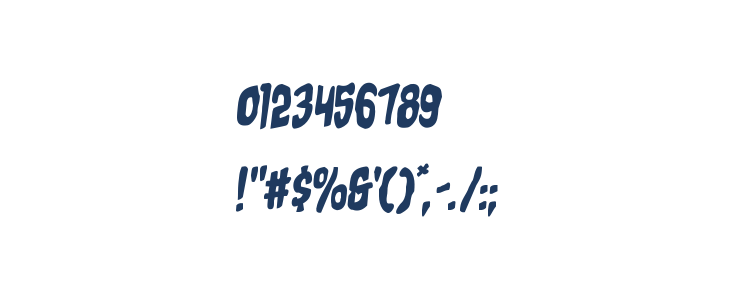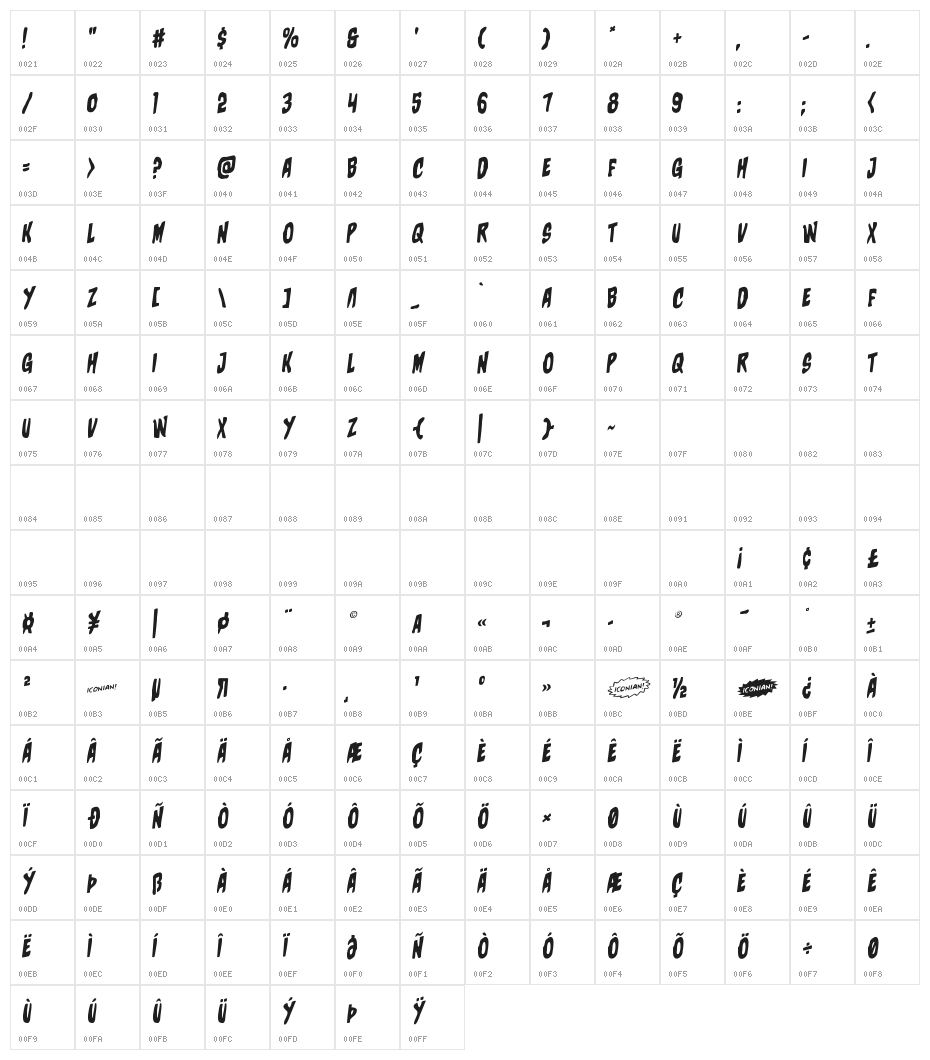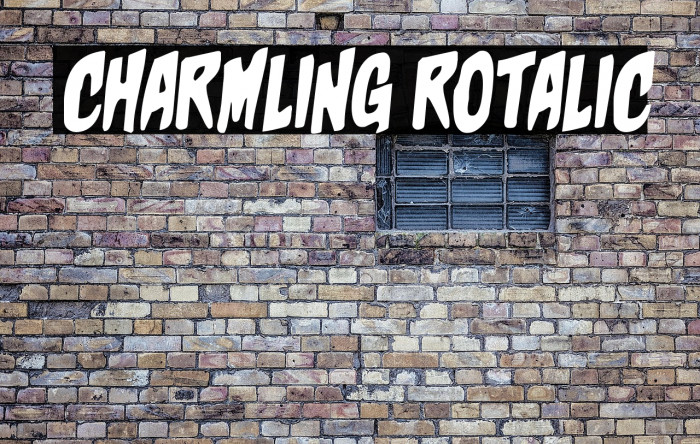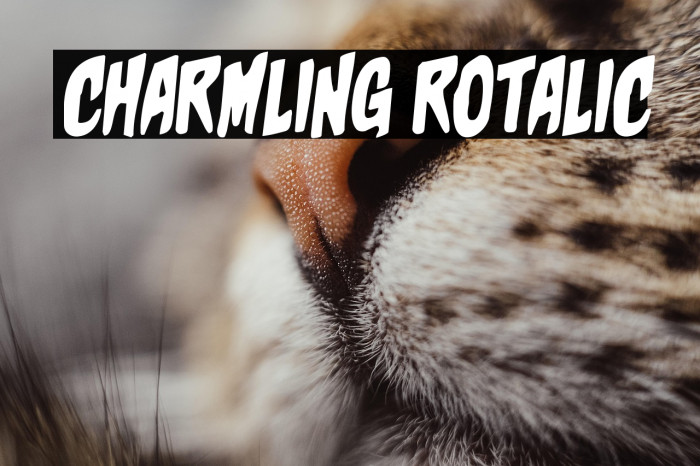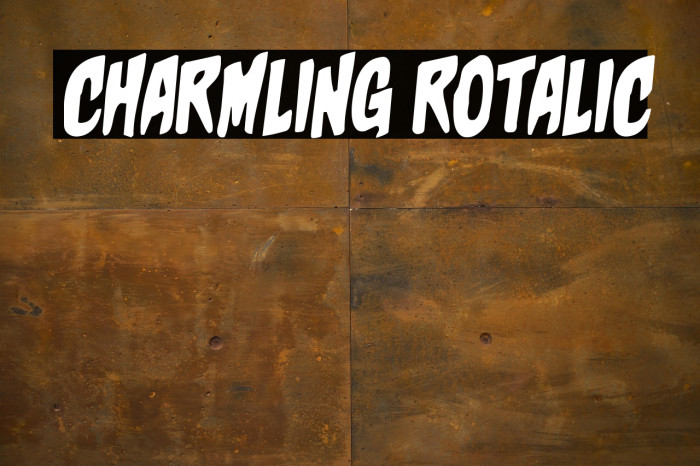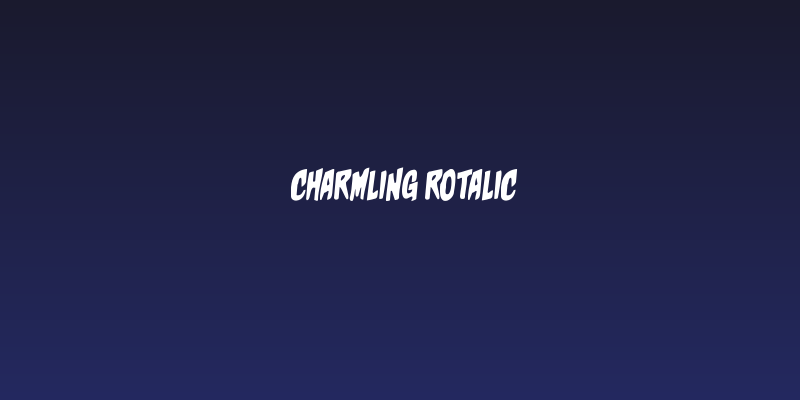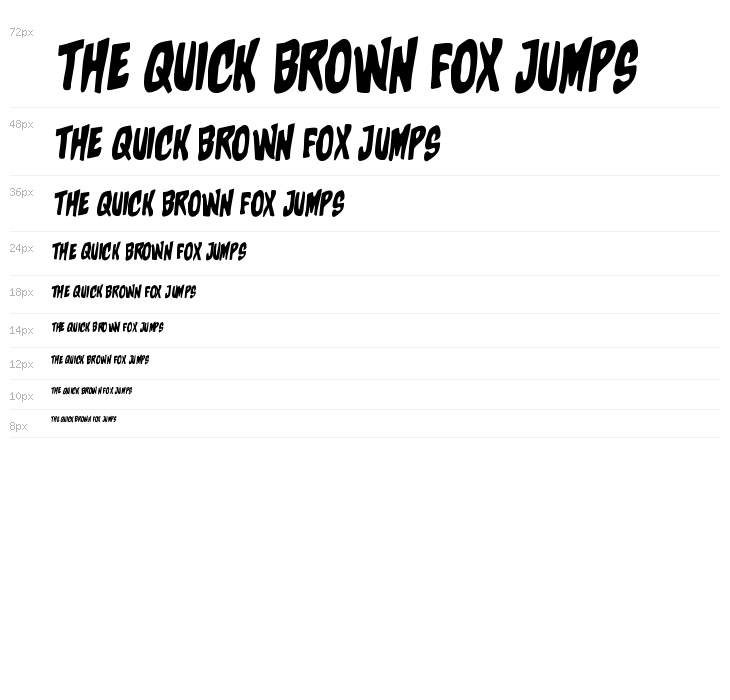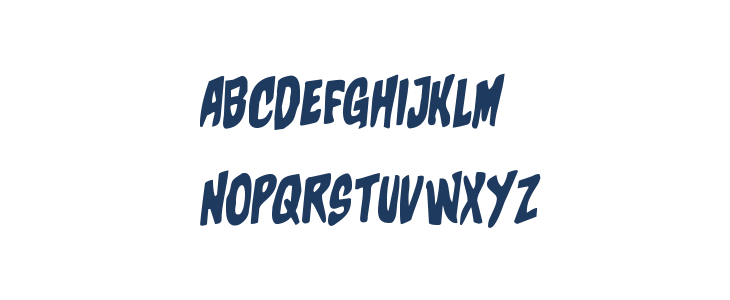
Charmling Rotalic Font
Charmling Rotalic Description
This font exhibits a bold and dynamic style with a strong presence. The characters are slightly slanted, giving it an italicized appearance, while maintaining a robust and energetic feel. The strokes are thick and consistent, contributing to a high contrast between the characters and the background. The overall design is playful yet assertive, making it suitable for attention-grabbing headlines or branding materials. The letters are closely spaced, creating a compact and cohesive look. The font's unique style makes it stand out, ideal for projects that require a bold statement.